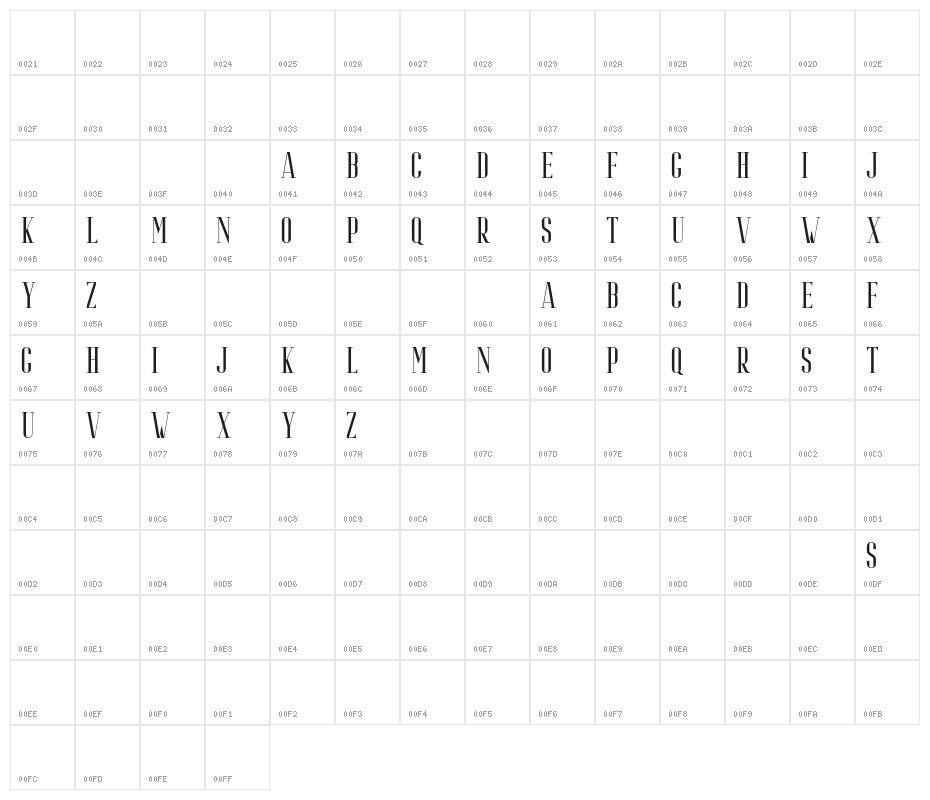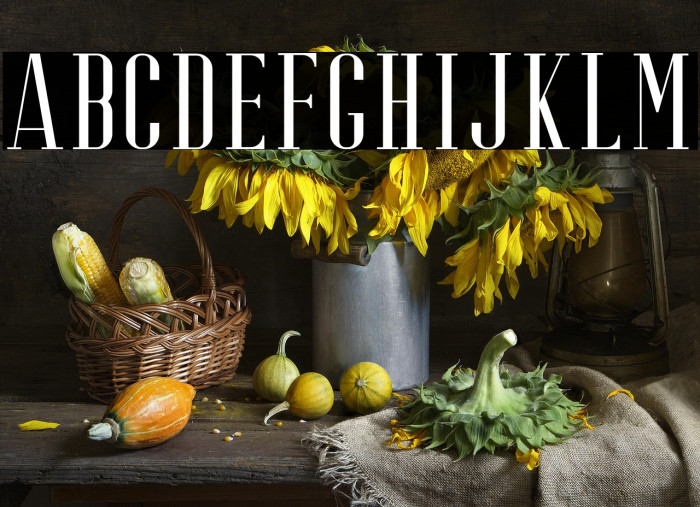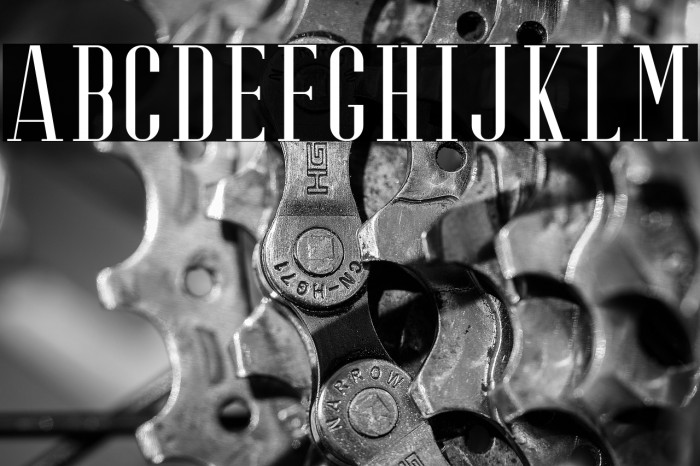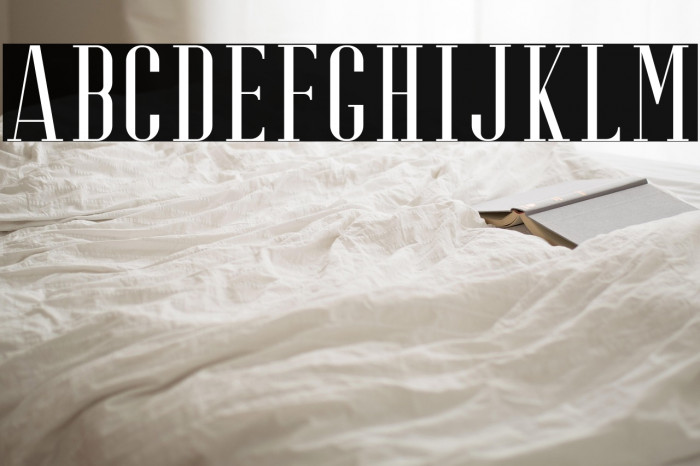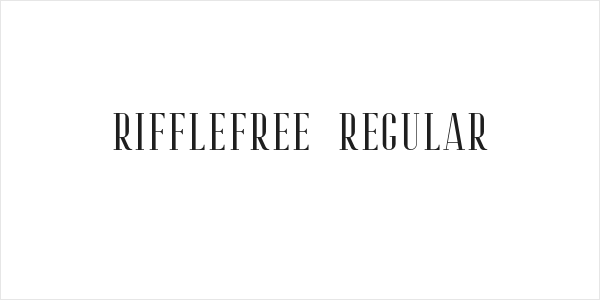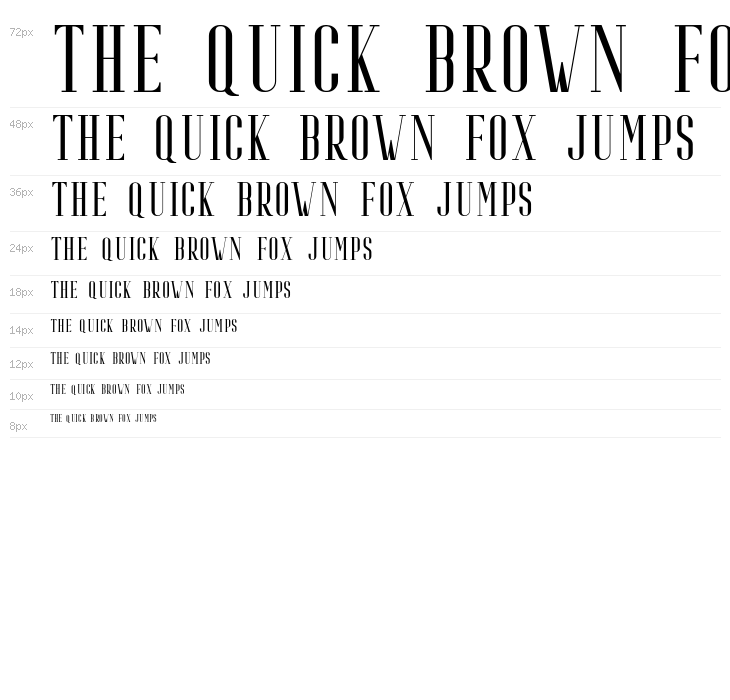
RiffleFree-Regular Font
RiffleFree-Regular Description
This font features a modern and elegant design with tall, narrow letterforms and high contrast between thick and thin strokes. The serifs are sharp and pronounced, adding a touch of sophistication and refinement. The vertical stress and elongated proportions give it a distinctive and stylish appearance, making it suitable for a variety of design applications. The uppercase letters are particularly striking, with their clean lines and balanced structure. Overall, this font exudes a sense of modernity and elegance, making it an excellent choice for projects that require a touch of class and sophistication.
| Use Case | Headlines, Logos, Editorial design |
| Proposed Projects | Ideal for luxury branding, editorial design, fashion magazines, and elegant invitations. |